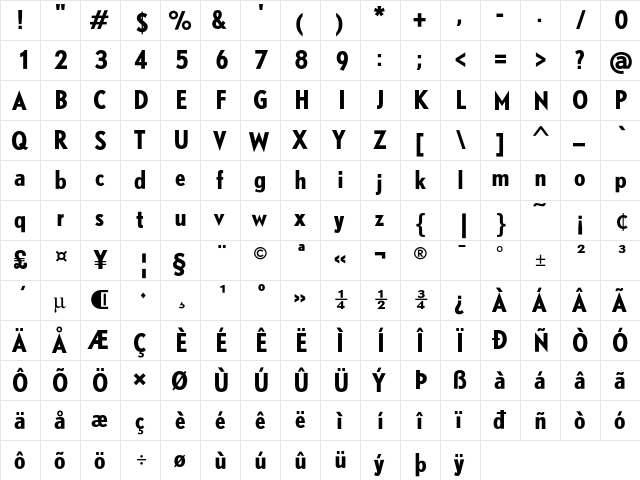
DTLNobelT CondensedBold
Design Context for DTLNobelT Typeface
DTLNobelT is a composed and adaptable typeface that performs quietly and consistently across a wide range of design contexts. Its bold stroke weight gives it real presence on the page. The condensed width makes it efficient for tight spaces without sacrificing legibility.